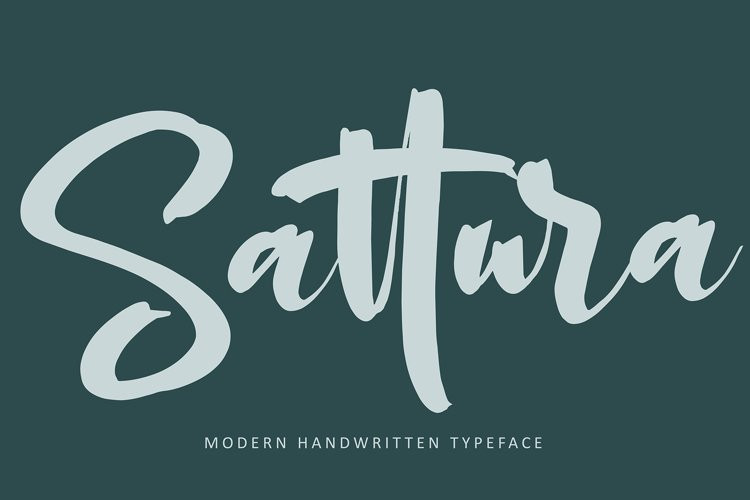
Sattura Font
Sattura FontSattura font with new style, this font will perfect for many different project ex: quotes, logo, blog header, poster, banding, letter, invitation, stationery, etc…